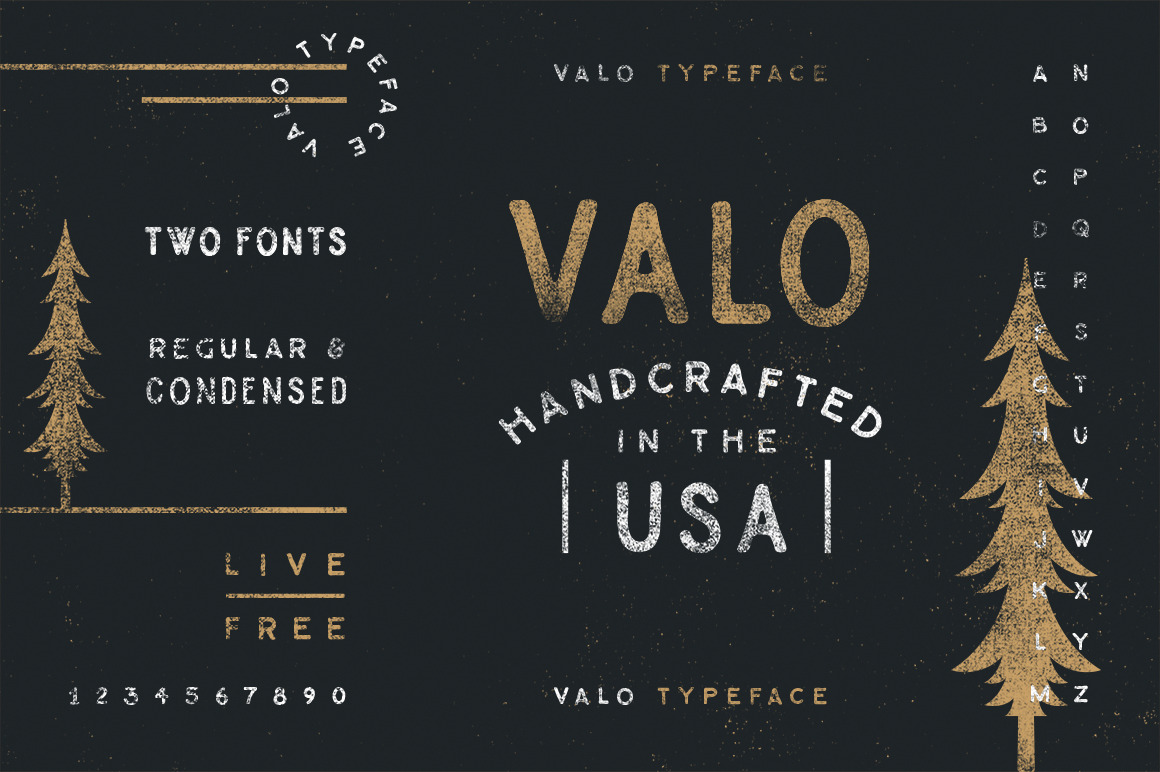
Valo | A Handmade Typeface Duo SALE
Valo is a rugged yet relaxed typeface, including both a Regular and Condensed font. Use Valo to add a handmade touch to your logo design, apparel design, poster design, and more! The typeface is created in vector programs so you can scale as large as you want without pixelation. Valo comes with an uppercase alphabet, numbers, symbols, and even includes European characters!
The overlaid texture was done in Photoshop, and is not incorporated into the typeface unlike some of my other typefaces like Plat and Flam for example